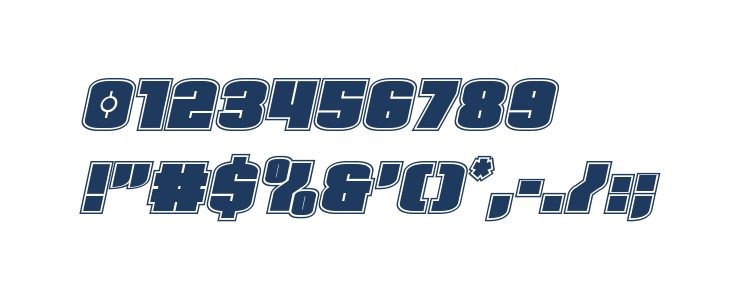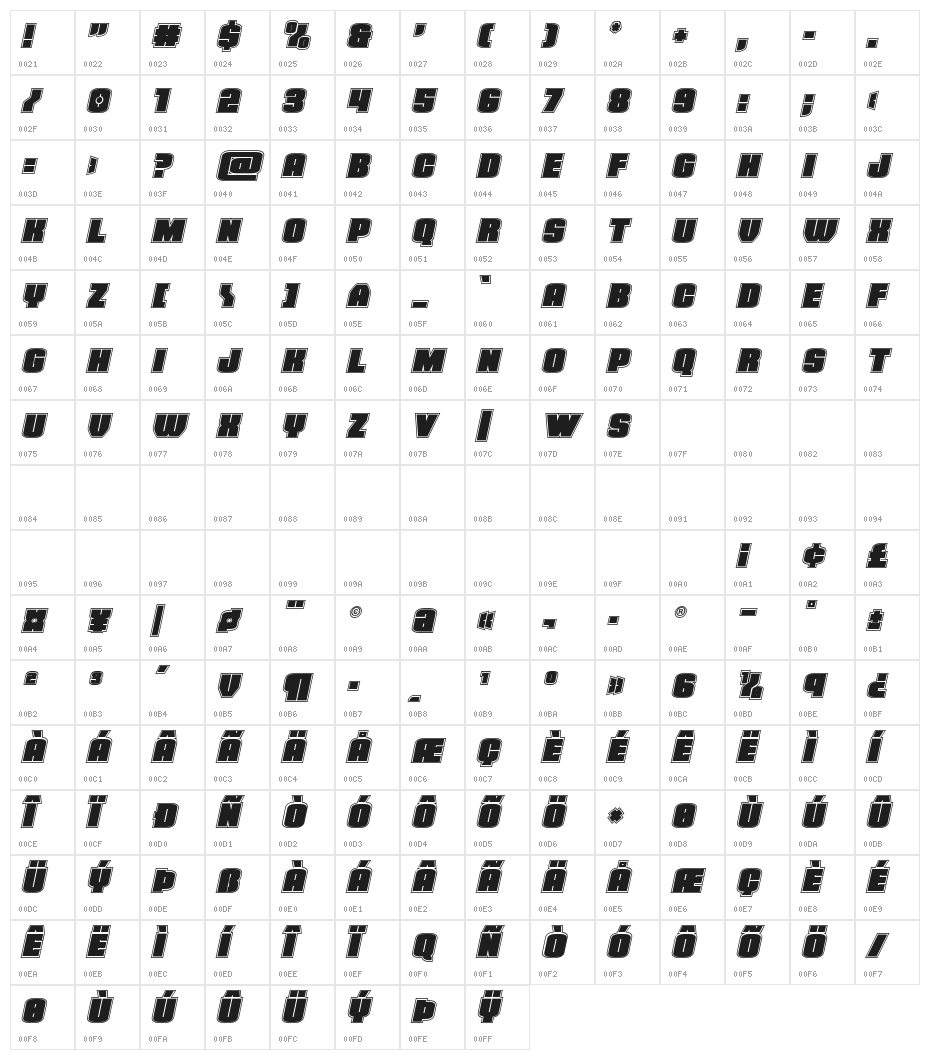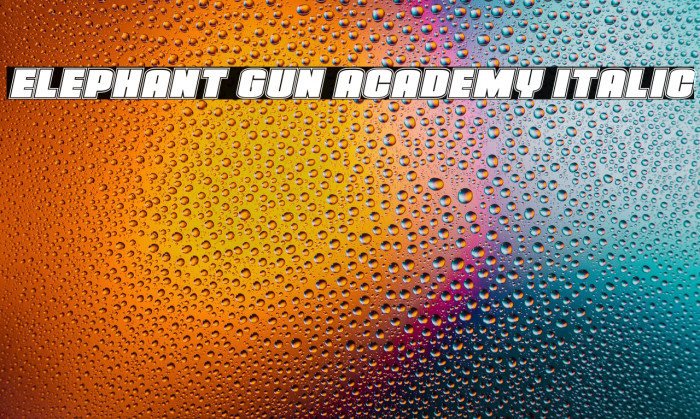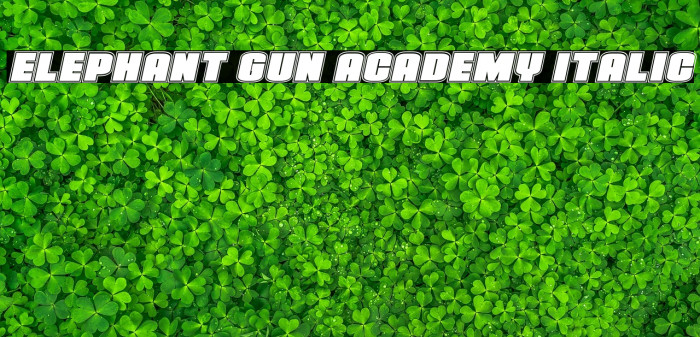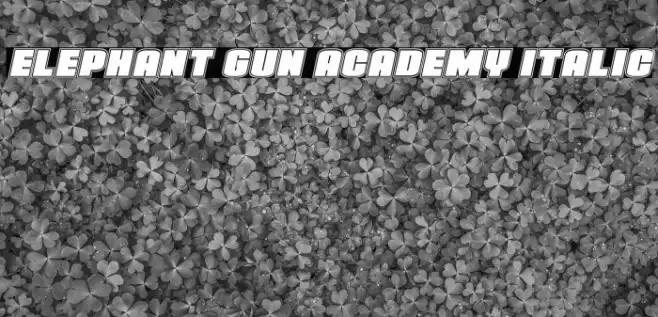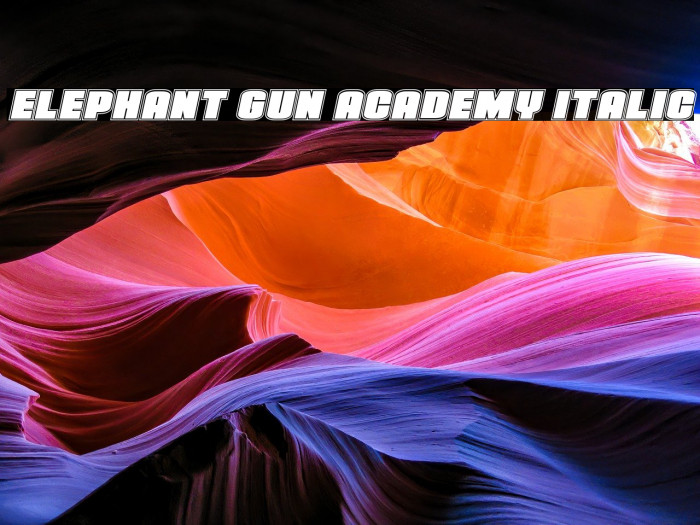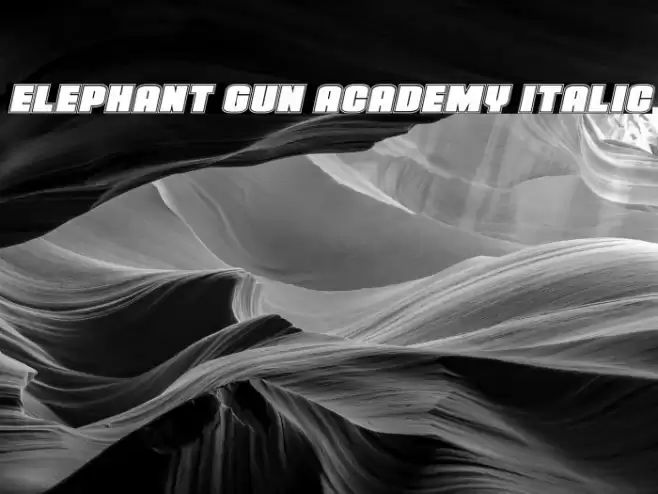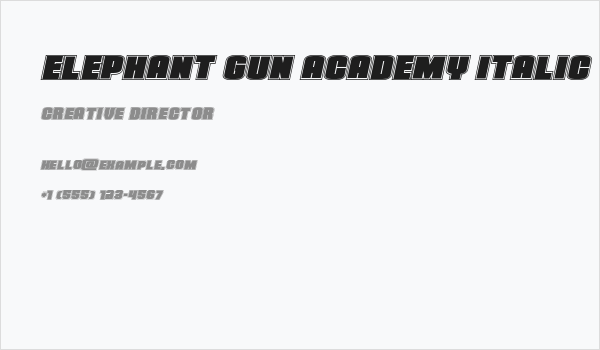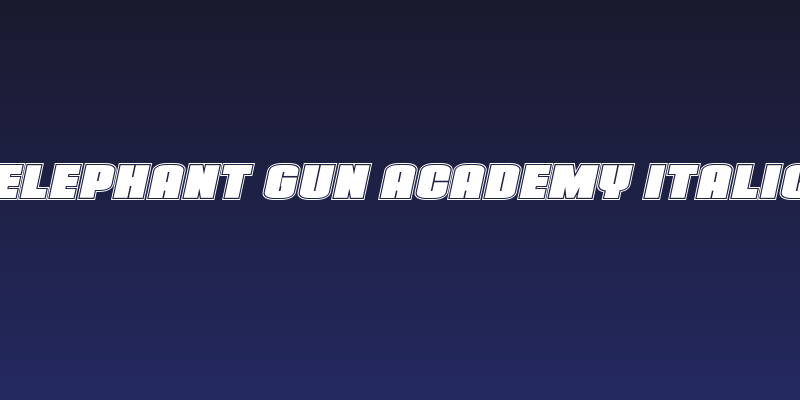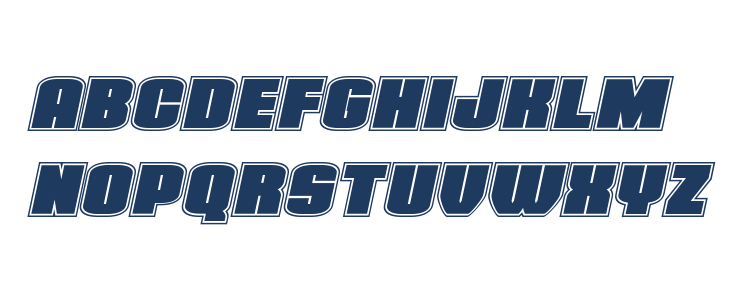
Elephant Gun Academy Italic Font
Elephant Gun Academy Italic Description
This font features a bold and impactful design with a strong presence. Each character is outlined, creating a striking contrast between the filled and unfilled spaces. The italic slant adds a dynamic and energetic feel, making it suitable for attention-grabbing headlines or titles. The uppercase and lowercase letters maintain a consistent style, with wide, blocky shapes that convey strength and stability. Numbers and special characters are designed to match the bold aesthetic, ensuring uniformity across all text elements.